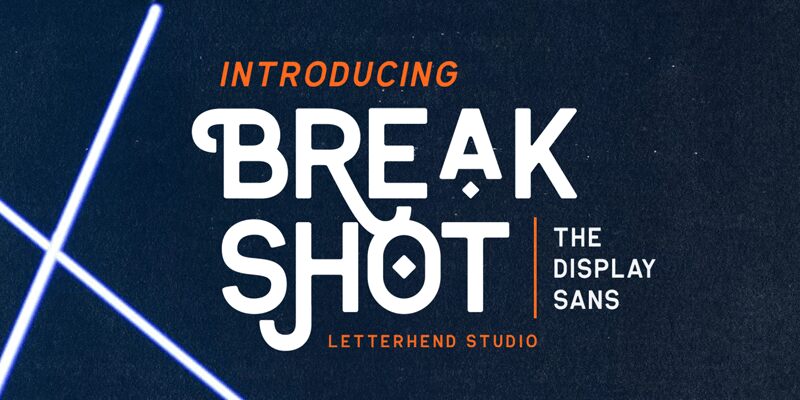
Breakshot font by Letterhend Studio is a free retro display typeface that hits with the impact of its name. Heavy, tightly spaced letters and chunky, rounded corners give it a bold, almost mechanical rhythm, while the quirky sculpted shapes keep it playful instead of stiff. It feels like vintage arcade lettering crossed with industrial signage—solid, loud, and impossible to miss.
Using Breakshot, your titles snap into focus for posters, logos, product packaging, signage, album covers, and bold social graphics. This free font thrives in big sizes where its dense forms can really punch through busy layouts. Pair it with a clean, light sans serif for supporting text to let Breakshot own the spotlight.